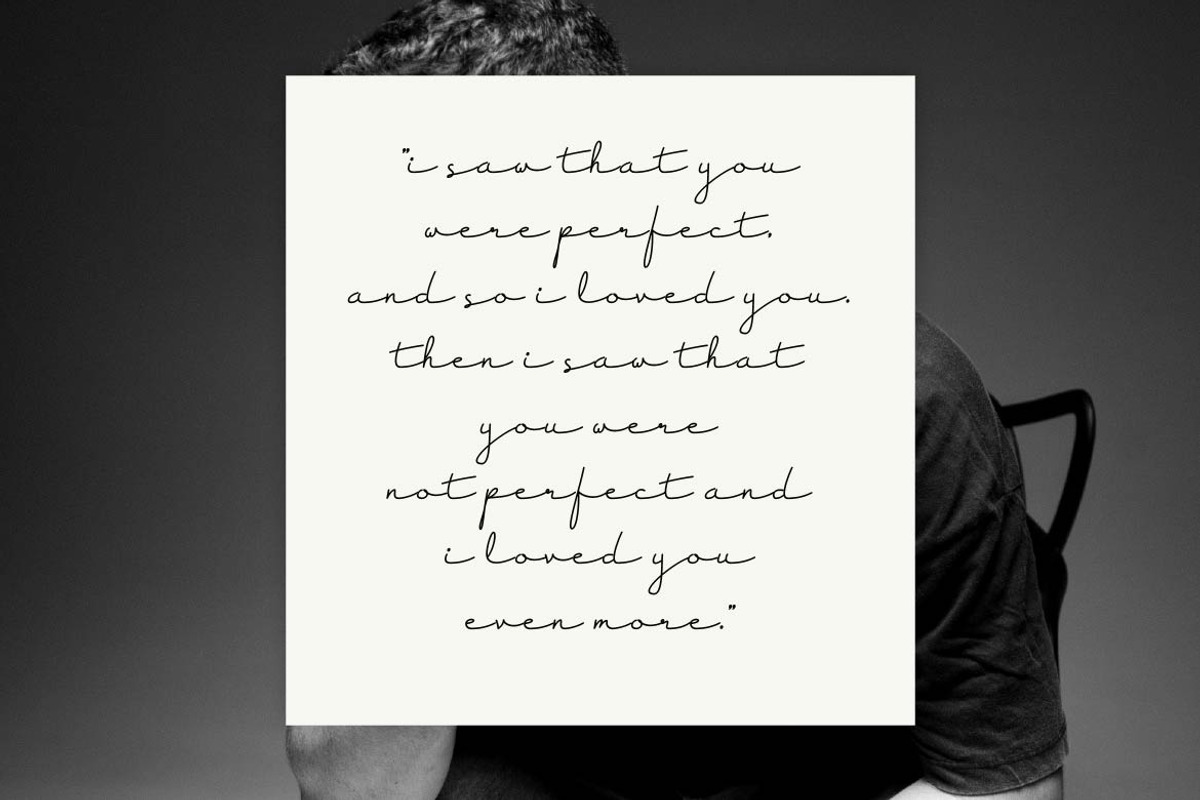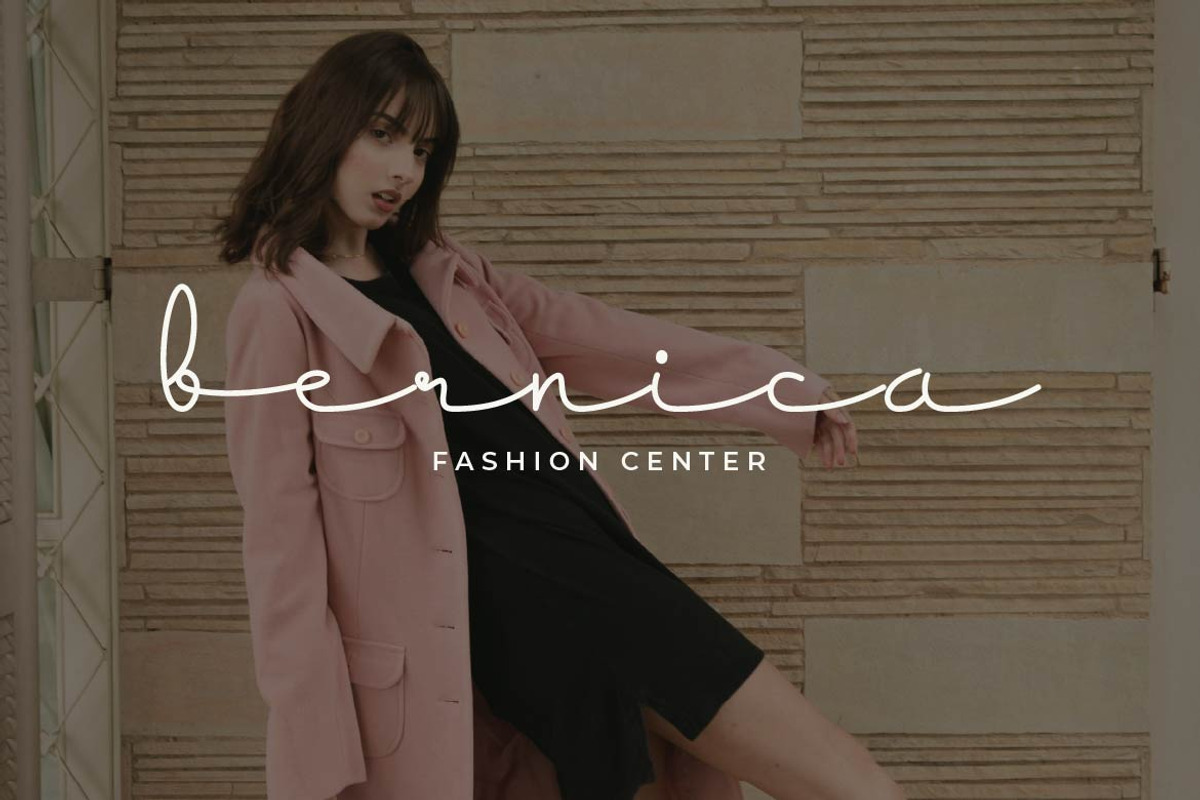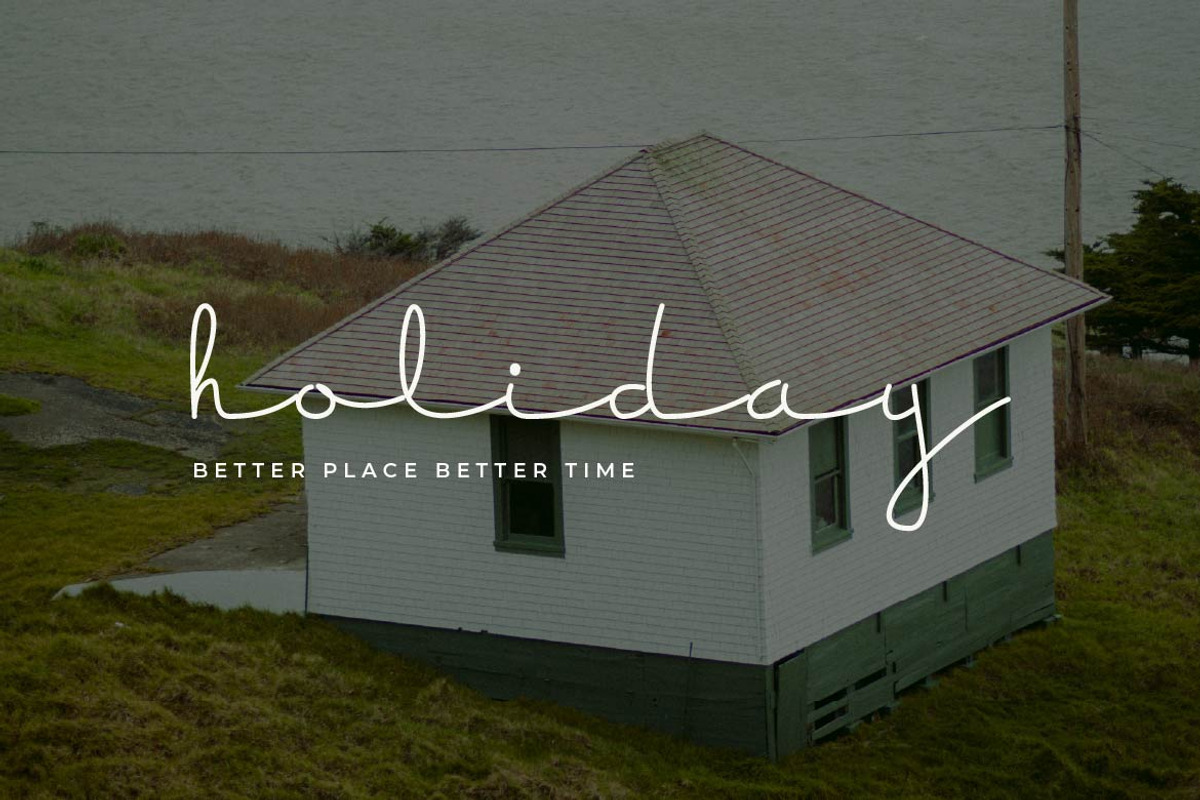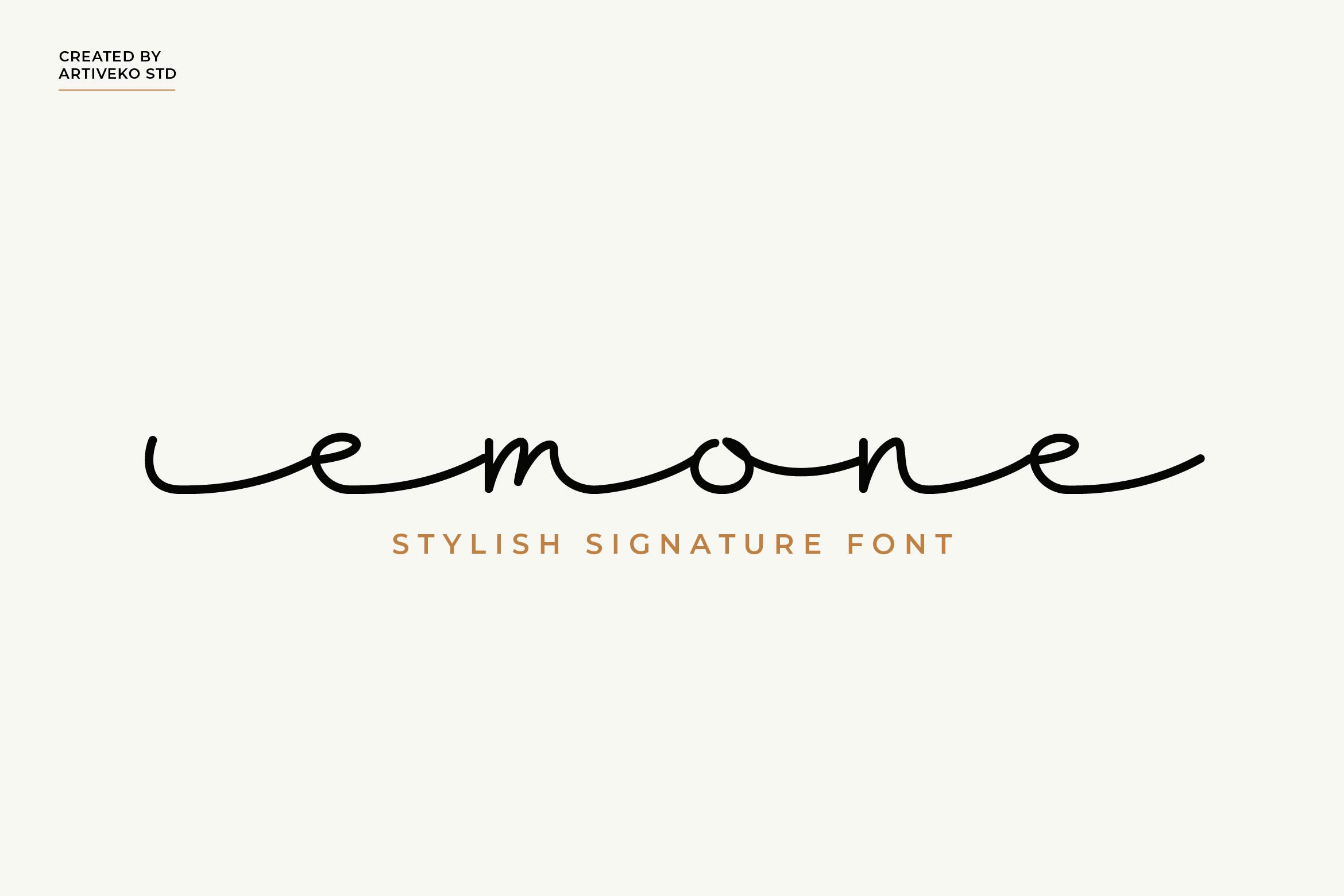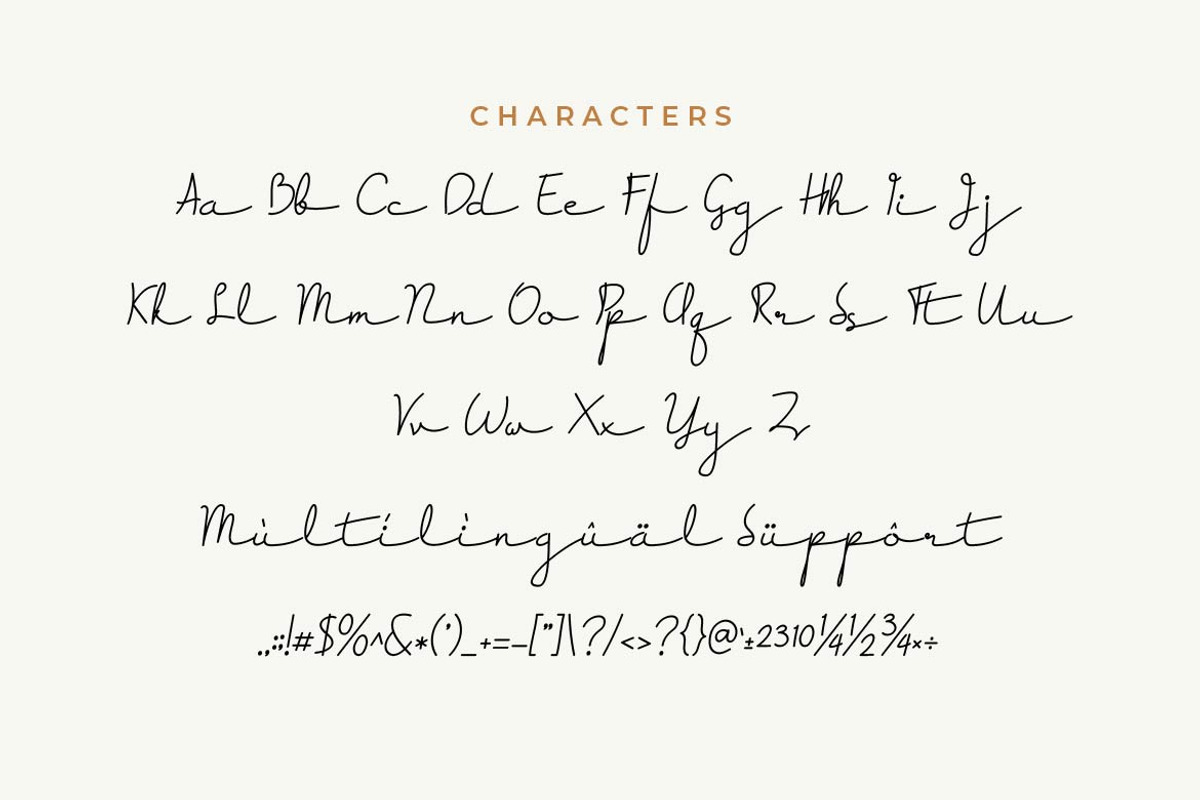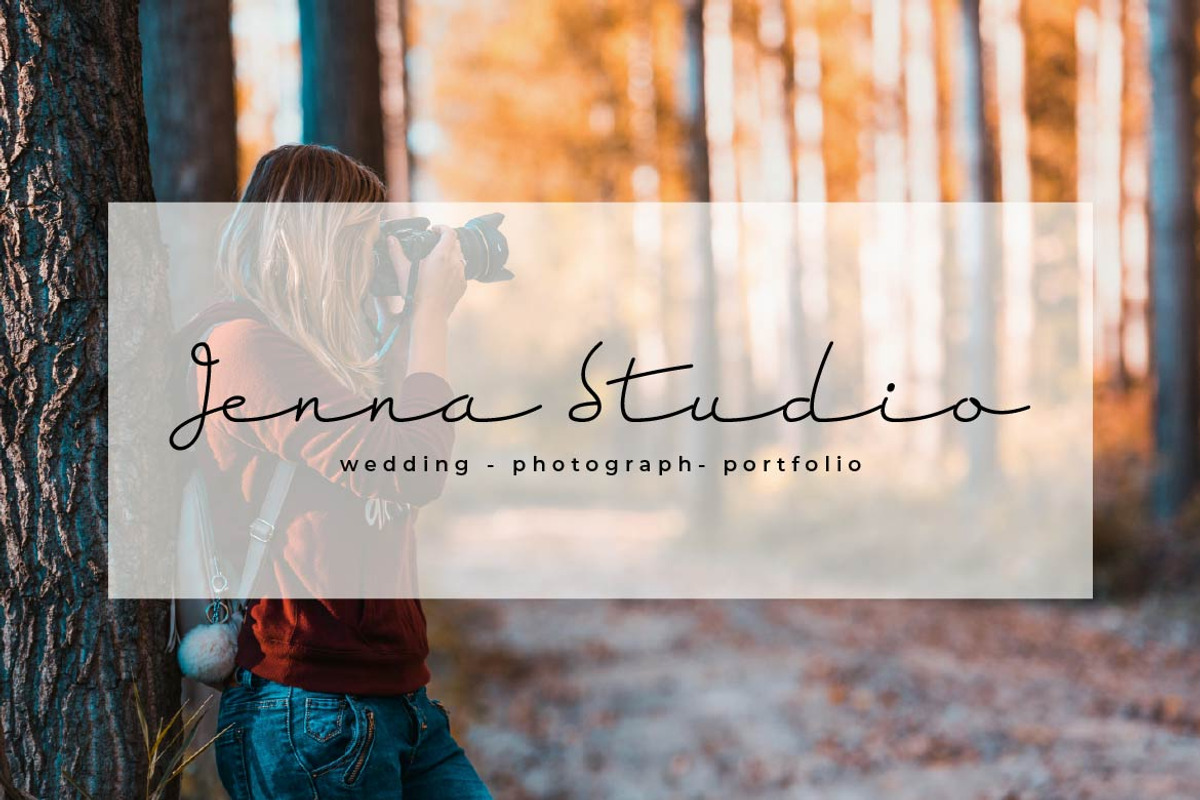
Emone Script Typeface
Emone is an elegant handwritten script font designed to bring the beauty of natural handwriting into modern design. With its flowing strokes, smooth curves, and refined signature style, Emone is perfect for personal branding, logo design, wedding invitations, social media graphics, and product packaging that need a personal yet professional touch.